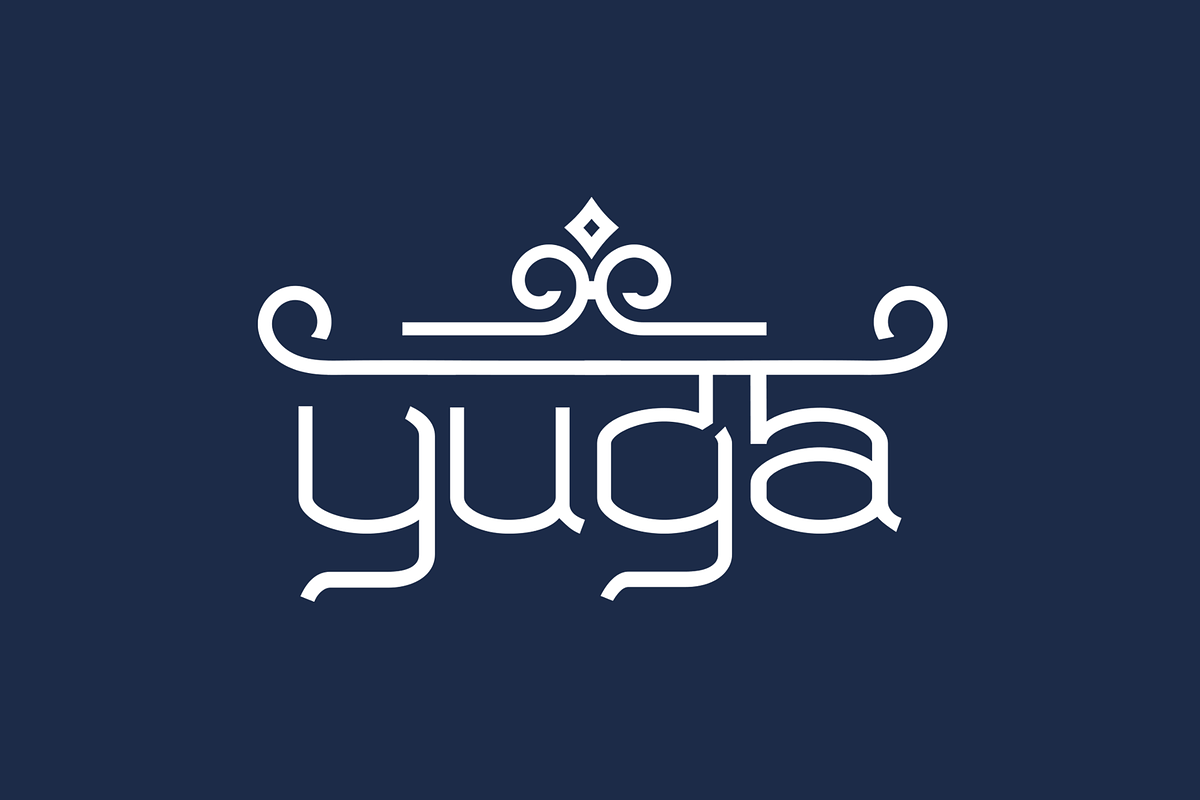
Yuga Sanskrit – English Font Free Download is a beautifully crafted typeface that blends the elegance of traditional Sanskrit aesthetics with modern English readability. Designed to evoke cultural richness and spiritual harmony, this font is perfect for yoga studios, wellness brands, cultural events, book covers, and sacred art-inspired projects.
Yuga Sanskrit – English Font Free Download features delicate curves, subtle ornamental details, and a refined structure that makes it stand out while remaining highly legible. Whether you're creating branding for holistic practices or designing content with a spiritual or historical theme, this font adds authenticity and depth.
It’s versatile enough for both print and digital use. Feel free to try it in personal or concept designs, but keep in mind that a commercial license is required for any professional usage. Channel timeless beauty and mindful energy into your designs with Yuga Sanskrit.